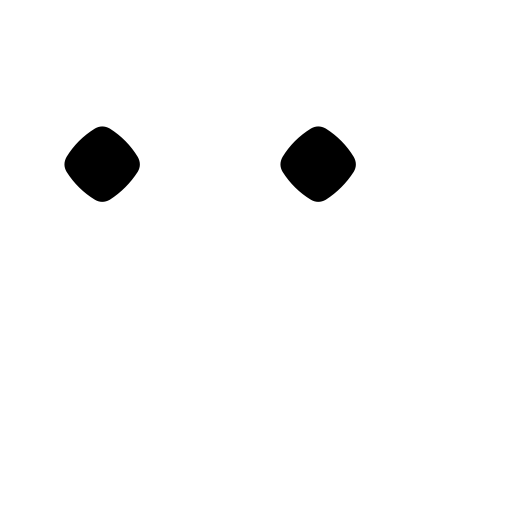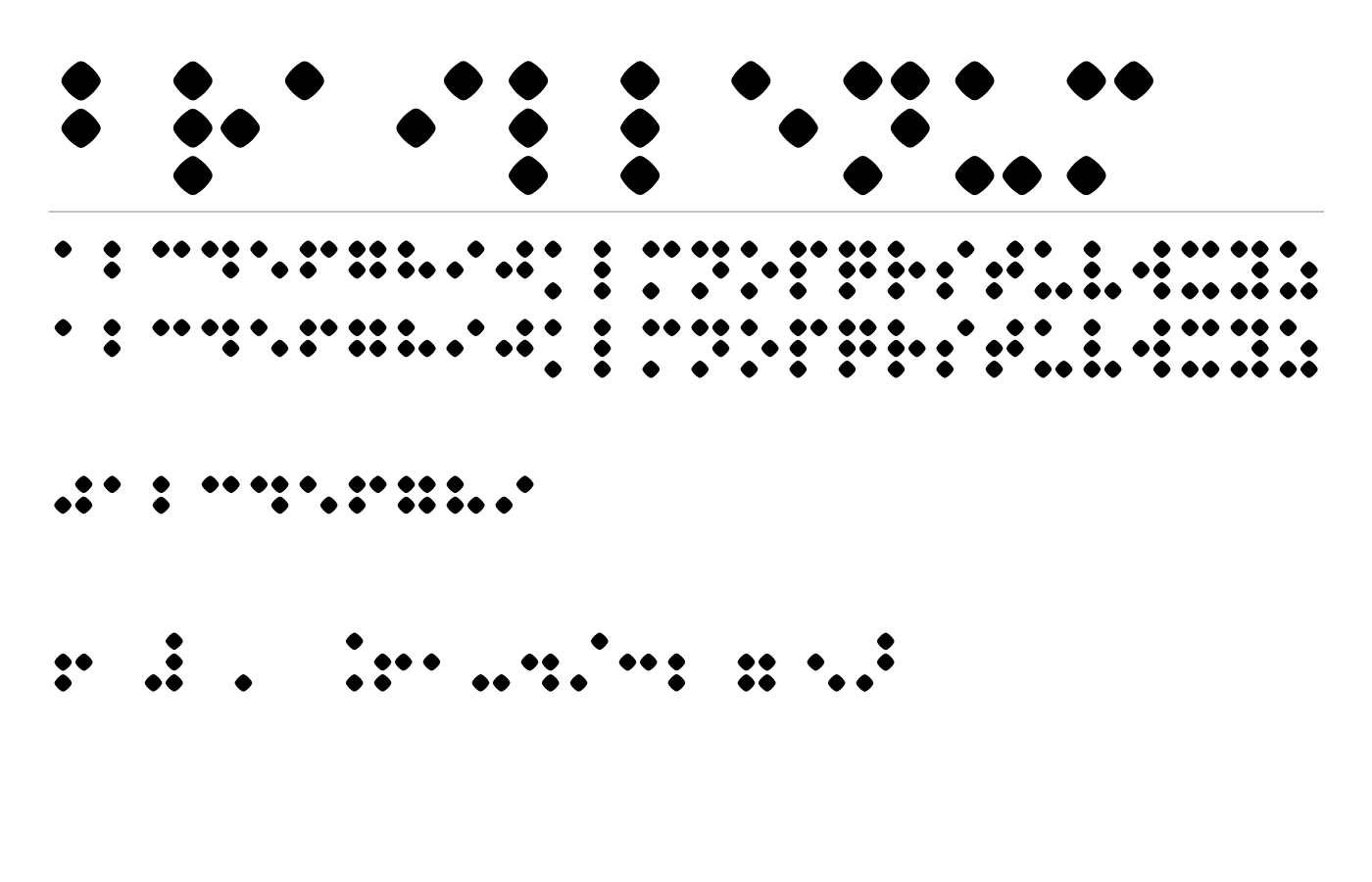
Braillenum Font is a unique and specialized typeface that visually represents the Braille writing system through bold, rounded dot patterns. Designed with clear, consistent spacing and simple geometric forms, it captures the tactile essence of Braille while maintaining readability for visual communication. This font works well in educational materials, accessibility projects, and designs aiming to raise awareness of inclusivity and sensory diversity.
Braillenum Font
About Braillenum Font